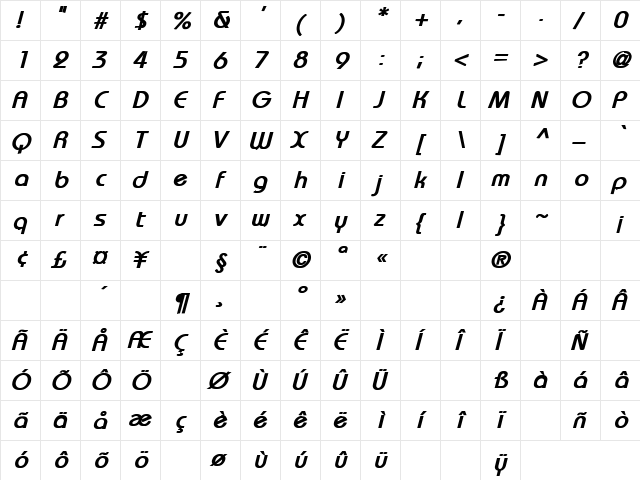
Blue Water 2 Bold Italic
Design Context for Blue Water 2 Typeface
Blue Water 2 is a composed and adaptable typeface that performs quietly and consistently across a wide range of design contexts. The slanted form adds forward momentum and visual energy. The heavy weight commands attention and anchors typographic hierarchies.